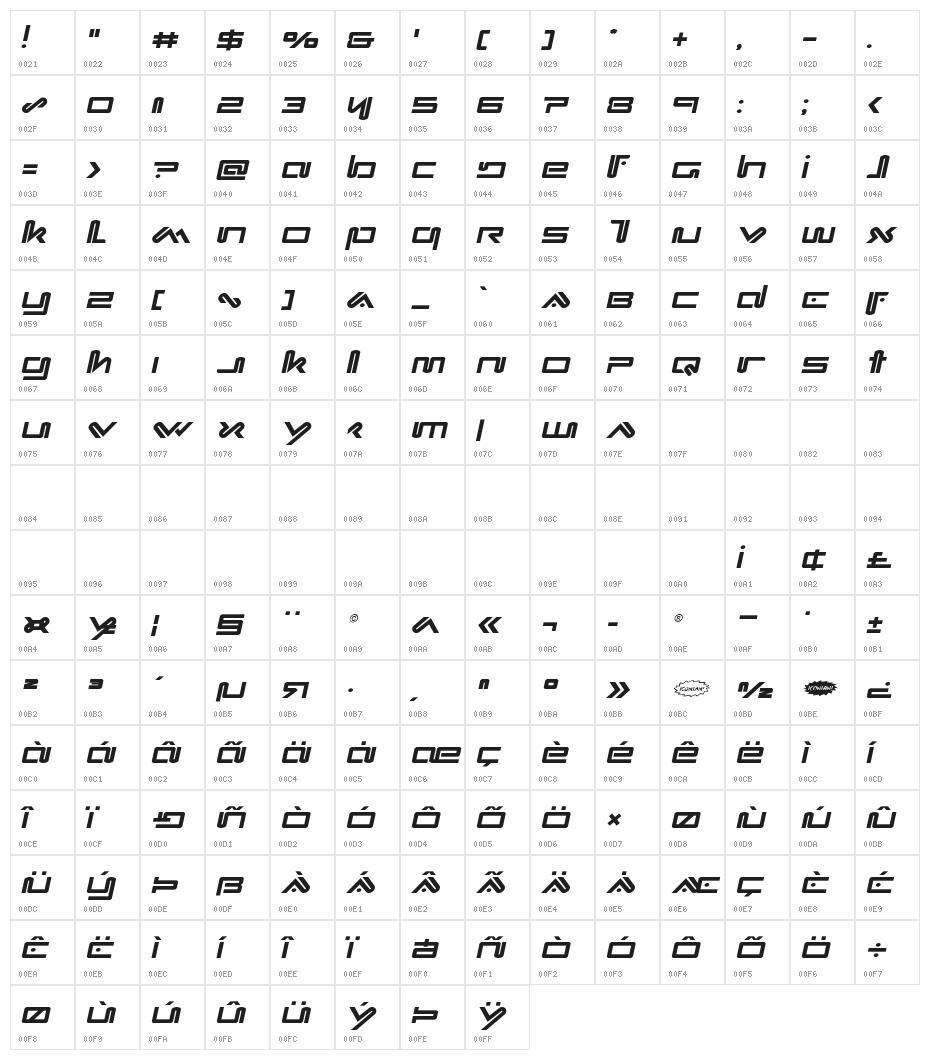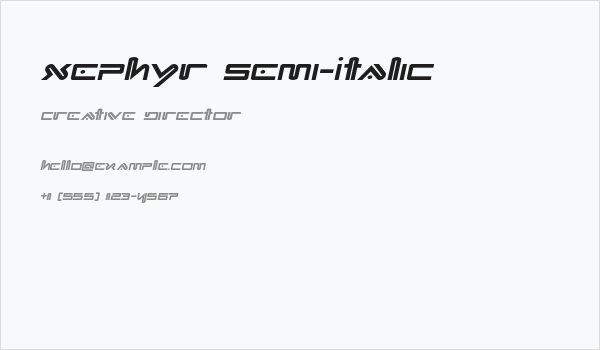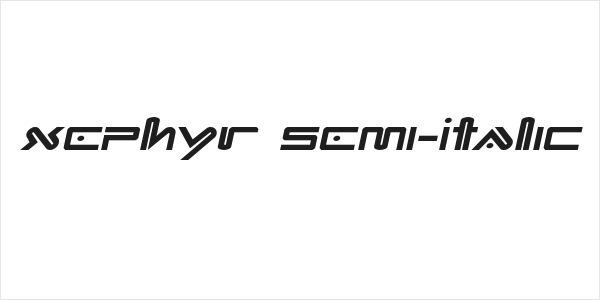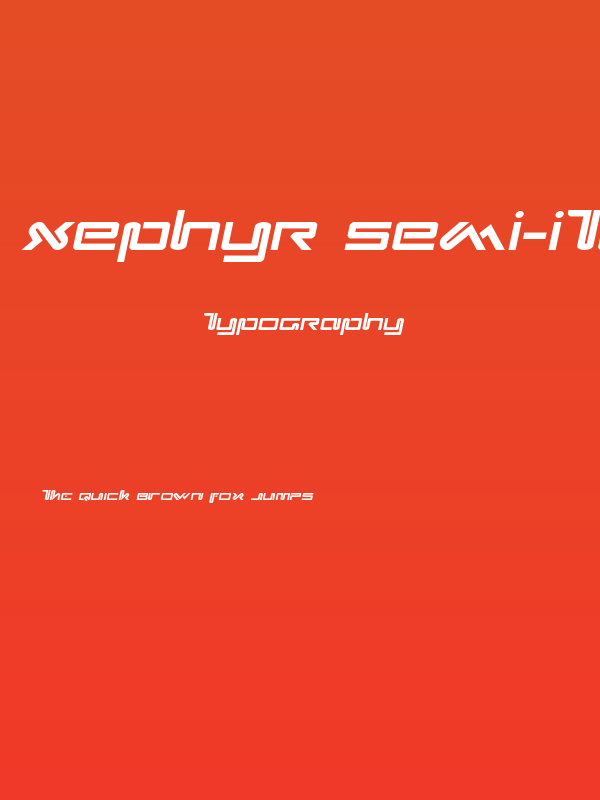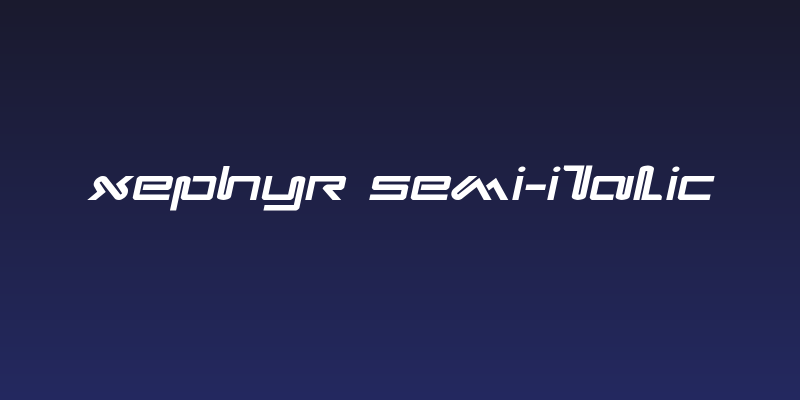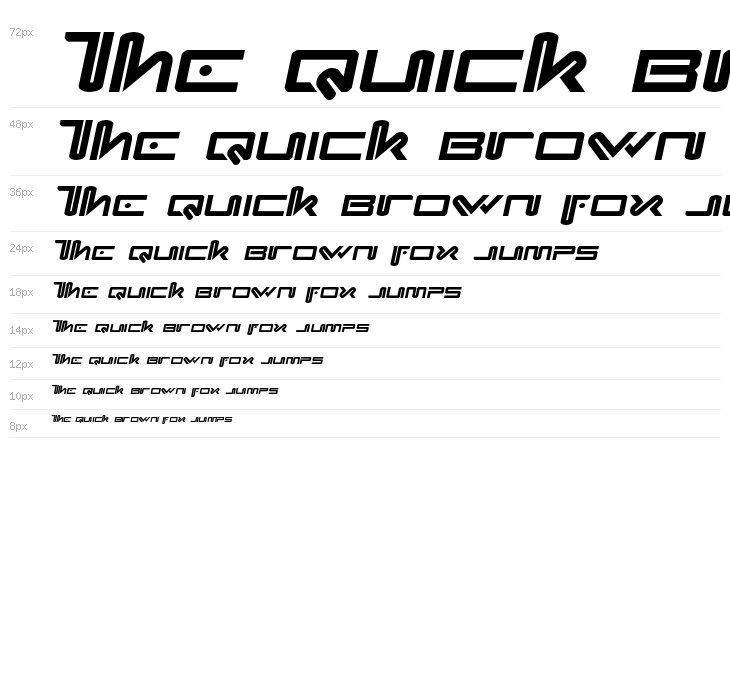
Xephyr Semi-Italic Font
Xephyr Semi-Italic Description
This font features a futuristic and angular design, characterized by its sharp edges and geometric shapes. The letters are slightly slanted, giving it a dynamic and forward-moving appearance. The strokes are consistent in weight, providing a uniform look across all characters. The font includes both uppercase and lowercase letters, numbers, and a variety of special characters. Its unique style makes it stand out, with a modern and sleek aesthetic that is both eye-catching and versatile.